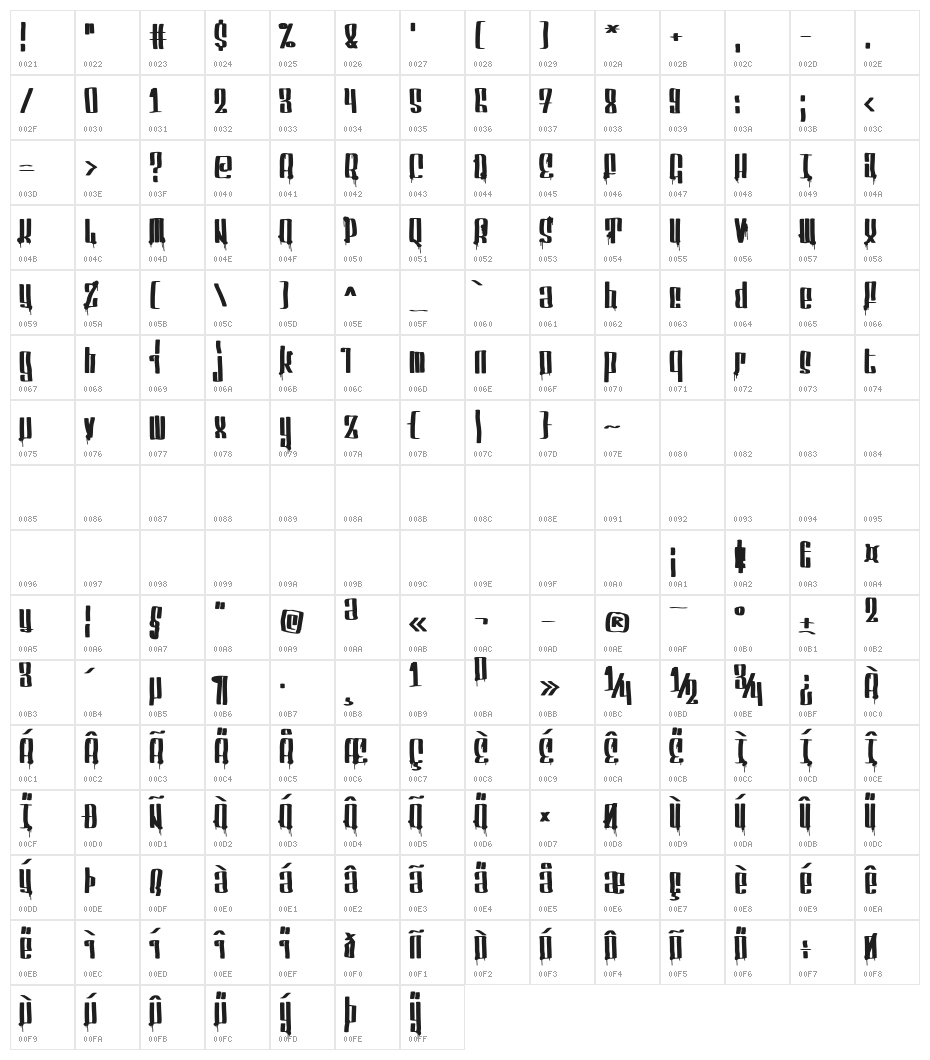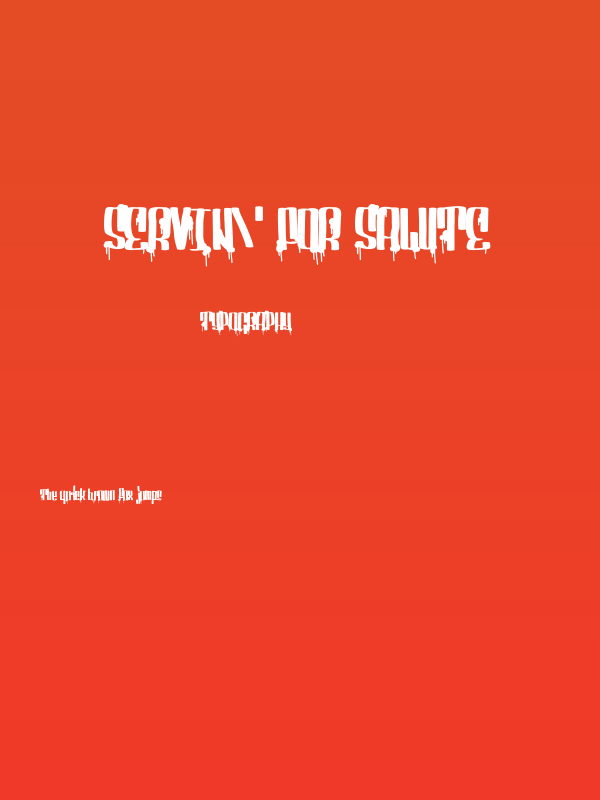
Servin' For Salute Font
Servin' For Salute Description
This font features a bold, graffiti-inspired style with a dripping effect that gives it a dynamic and edgy appearance. The characters are thick and blocky, with a consistent width that adds to its boldness. The uppercase and lowercase letters maintain a uniform height, creating a cohesive look. The numerals and special characters follow the same design principles, ensuring a seamless integration across different uses. The dripping effect adds a unique texture, making it stand out for creative and artistic projects.
| Proposed Projects | Ideal for street art designs, urban-themed posters, music album covers, and edgy branding projects. |